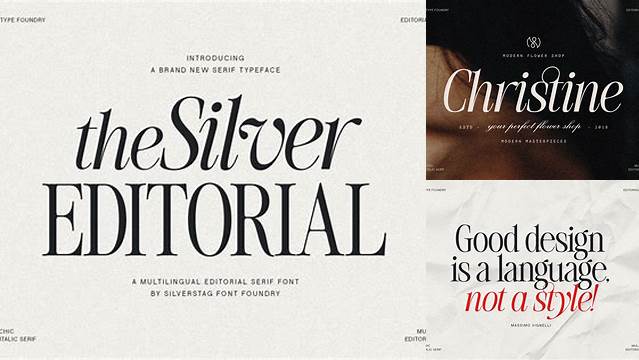
The Silver Editorial Font: Free Download & Guide
Hey everyone! Are you on the hunt for a stunning and versatile serif font that screams modern elegance? Look no further, because I've got the perfect gem for you: The Silver Editorial. And the best part? It's available for free download! This font is an absolute game-changer for anyone looking to inject a touch of sophistication and style into their projects. Whether you're a graphic designer, a blogger, a student, or just someone who loves beautiful typography, The Silver Editorial is a must-have in your font arsenal. Trust me, you won't be disappointed! Let's dive into what makes this font so special and how you can start using it today.
Unveiling The Silver Editorial: A Closer Look
So, what exactly is The Silver Editorial font? Well, it's a modern serif font characterized by its clean lines, balanced proportions, and a touch of contemporary flair. It's designed to be both readable and visually appealing, making it ideal for a wide range of applications. Think of it as the perfect blend of classic serif elegance with a modern twist. The font features a variety of weights, allowing you to experiment with different looks and feels. You can use the light weight for a delicate and airy aesthetic or the bold weight for a more impactful and attention-grabbing design. The versatility of The Silver Editorial is one of its biggest strengths. It's like having a whole collection of fonts in one! From headlines and titles to body text and captions, this font can handle it all with grace and style. The designers have clearly put a lot of thought into every detail, from the curves of the letters to the spacing between them. The result is a font that is not only beautiful but also highly functional. It's designed to be easy on the eyes, ensuring that your audience can effortlessly read and enjoy your content. The Silver Editorial is all about creating a sense of refined sophistication. It's a font that exudes class and elegance, making it perfect for projects that aim to convey a sense of luxury, professionalism, or artistic flair. Imagine using it for a high-end fashion brand, a luxury travel blog, or a sophisticated editorial layout. The possibilities are truly endless! The Silver Editorial is a serif font that isn't just a font; it's a statement. It's a tool that empowers you to create designs that are both beautiful and effective. Whether you're a seasoned designer or just starting out, this font is sure to elevate your work and leave a lasting impression.
Why Choose The Silver Editorial? Key Features & Benefits
Alright, so why should you choose The Silver Editorial over the countless other fonts out there? Well, let me break down some of its key features and benefits to help you see why it's such a fantastic choice. First and foremost, it's free! Yes, you heard that right. You can download and use this beautiful font without spending a single penny. This makes it accessible to everyone, regardless of budget. Secondly, the modern and chic design is a major draw. The Silver Editorial has a timeless elegance that will never go out of style. It's the kind of font that can instantly elevate your designs and make them look more polished and professional. Its versatility is another huge advantage. As mentioned earlier, The Silver Editorial offers different weights, which means you can use it for various purposes. Whether you need a font for a website header, a magazine layout, or a social media post, this font has you covered. The high readability of The Silver Editorial is another significant benefit. The letters are designed to be clear and easy to read, even at smaller sizes. This is crucial for body text, where readability is paramount. Let's not forget the wide range of applications. From branding and logos to editorial design and web design, The Silver Editorial can be used in countless ways. It's a truly versatile font that can adapt to any project. The professional appearance is another advantage. Using The Silver Editorial can give your designs a more sophisticated and polished look, helping you to create a positive impression on your audience. The font also offers a great balance between style and functionality. It's beautiful enough to catch the eye but also practical enough to be used for everyday purposes. Using The Silver Editorial can significantly improve your projects. This font is a great choice. It's not just about aesthetics. It's about finding a font that not only looks good but also performs well, ensuring that your message is delivered effectively. The Silver Editorial offers a blend of style, versatility, and functionality that's hard to beat. It's a font that can truly transform your designs.